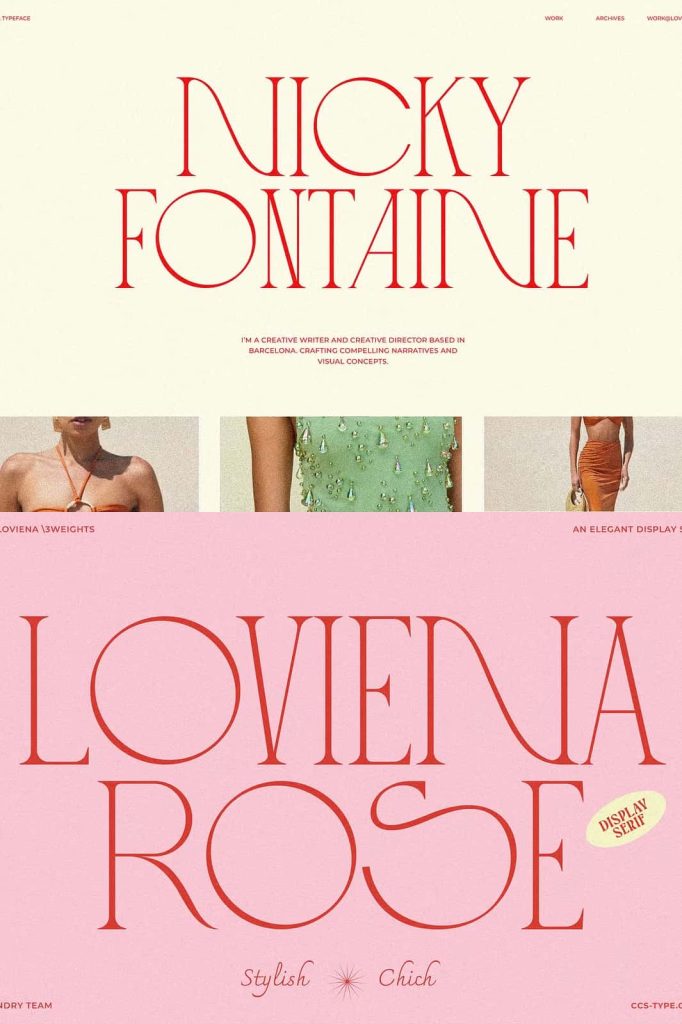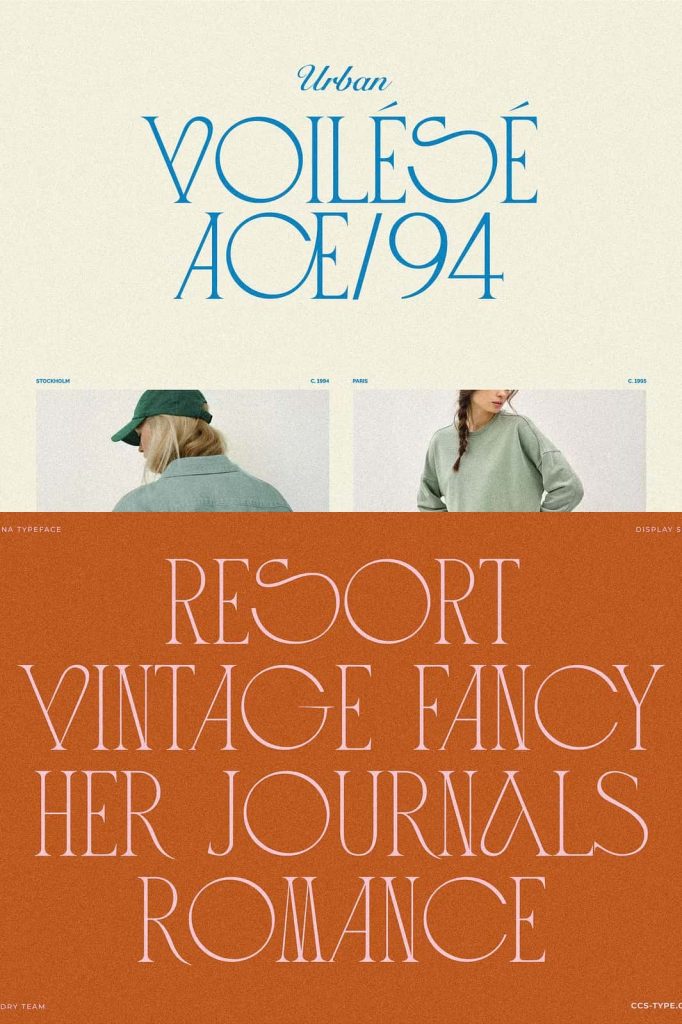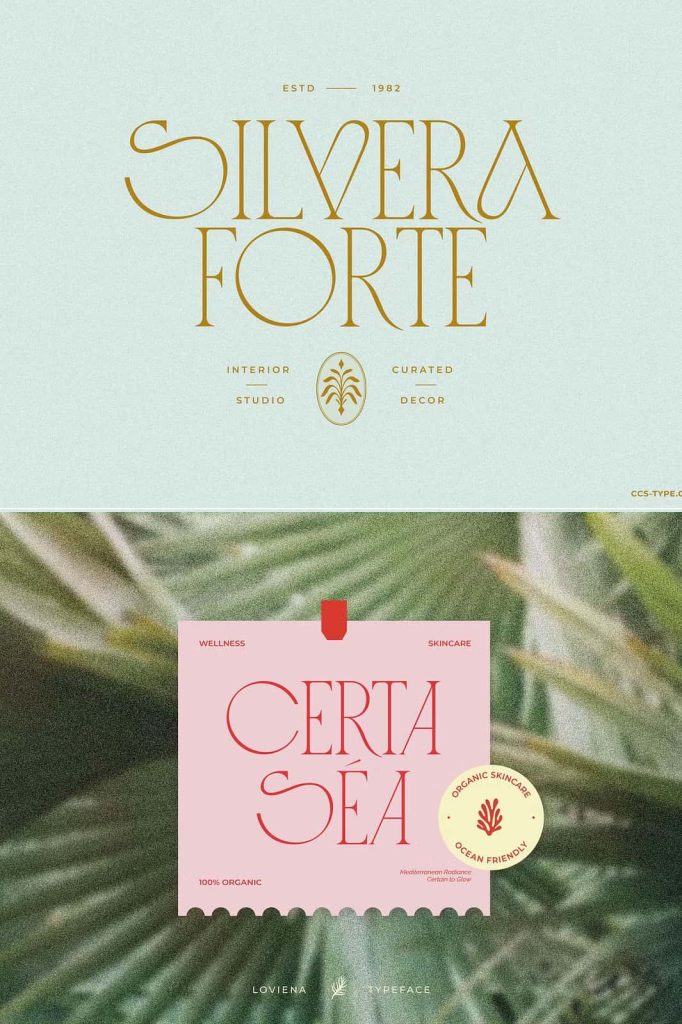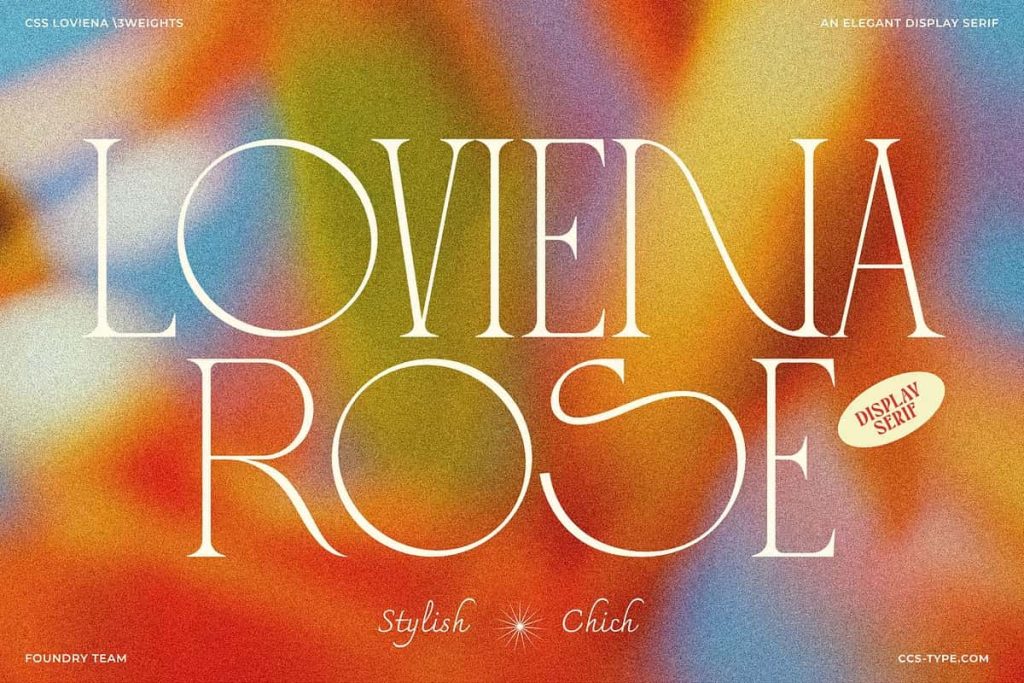
Loviena Rose – Stylish Serif
Loviena Display Serif: An Elegant All Caps Font with a Playful Tropical Spirit
Loviena Display Serif is an all caps display font that blends refined elegance with a playful twist. It captures the balance between classic sophistication and modern charm, creating a typeface that feels both luxurious and fresh. Inspired by the radiant mood of a tropical summer getaway, Loviena brings warmth, confidence, and feminine flair into every design.
This display serif does more than present text. It shapes atmosphere. It elevates branding. It transforms headlines into powerful visual statements. With its carefully crafted structure and distinctive personality, Loviena Display Serif helps designers create striking compositions that feel timeless yet full of life.
All Caps Elegance with Modern Energy
Loviena is designed in a bold all caps style that commands attention. Each letterform stands tall and confident, creating strong visual impact in headlines, titles, and logos. The structured serif details communicate sophistication, while subtle curves introduce softness and approachability.
This combination allows Loviena to feel polished without becoming rigid. It maintains a graceful rhythm across words, ensuring that even large display text remains balanced and harmonious. Designers can use it to express luxury, creativity, and contemporary style all at once.
Inspired by Tropical Luxury
Loviena Display Serif evokes the feeling of sunlit coastlines, warm breezes, and elegant summer escapes. Its refined shapes echo high-end fashion branding, while its playful details hint at relaxation and joy. This dual character makes it ideal for brands that want to appear sophisticated yet vibrant.
Whether you design for beauty brands, lifestyle products, travel campaigns, or creative editorials, Loviena helps you create a mood that feels radiant and confident.
Stylish Alternates and Ligatures for Creative Freedom
Loviena Display Serif includes a wide range of stylish alternates and ligatures. These features allow you to customize your typography and create distinctive wordmarks. Instead of relying on standard letter combinations, you can introduce subtle variations that enhance flow and uniqueness.
The alternates add flair without overwhelming the composition. Ligatures connect letters smoothly and refine spacing, resulting in polished, professional typography. Designers can experiment with different combinations to craft logos and headlines that feel truly original.
Create Unique and Memorable Headlines
Headlines define first impressions. Loviena empowers you to make them unforgettable. The strong all caps structure ensures visibility and clarity, especially in large formats. At the same time, decorative alternates add personality and style.
Use Loviena to design:
• Luxury brand logos
• Magazine covers and editorial titles
• Beauty and fashion campaigns
• Social media banners
• Packaging headlines
Each project benefits from its refined yet playful character. The font enhances visual hierarchy and draws the viewer’s eye directly to key messages.
Three Weights for Flexible Design
Loviena Display Serif comes in three carefully developed weights: Regular, Semibold, and Bold. Each weight offers a distinct level of emphasis while maintaining consistent elegance and structure.
Regular
The Regular weight delivers balanced sophistication. It works beautifully for refined titles, elegant branding, and editorial layouts that require subtle strength.
Semibold
The Semibold weight increases presence and authority. It creates stronger contrast in headlines while preserving graceful proportions.
Bold
The Bold weight commands attention with confidence. It is perfect for impactful logos, dramatic covers, and promotional materials that need immediate visual impact.
This range of weights gives designers the flexibility to build layered typography systems. You can combine different weights to create dynamic contrast within the same project.
Perfect for Feminine and Luxury Branding
Loviena Display Serif shines in projects that require elegance with personality. Its refined serifs and smooth curves communicate femininity and grace, while the all caps structure reinforces strength and clarity.
This makes Loviena ideal for:
• Fashion and beauty branding
• Luxury packaging design
• Wedding and event stationery
• High-end lifestyle products
• Creative portfolio presentations
The font pairs beautifully with minimalist sans-serif typefaces, soft pastel palettes, and bold tropical color schemes. This adaptability allows you to craft cohesive visual identities across print and digital platforms.
Timeless Yet Playful Design Solution
Design trends shift constantly, but strong typography remains essential. Loviena Display Serif provides a timeless foundation enhanced by modern creativity. Its elegant proportions ensure lasting appeal, while its alternates and ligatures keep the design fresh and engaging.
When you choose Loviena, you select more than a display serif. You choose a design tool that empowers bold storytelling and expressive branding. Its tropical-inspired elegance, stylish features, and versatile weights make it a powerful addition to any designer’s collection.
Loviena Display Serif transforms headlines into statements, logos into identities, and layouts into captivating visual experiences. Elevate your next project with this all caps font that blends classic sophistication, modern charm, and playful luxury in every letter.